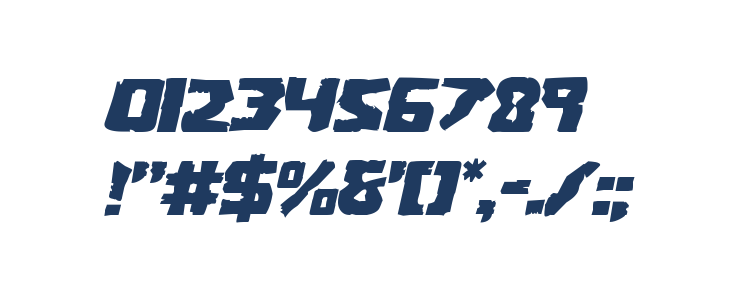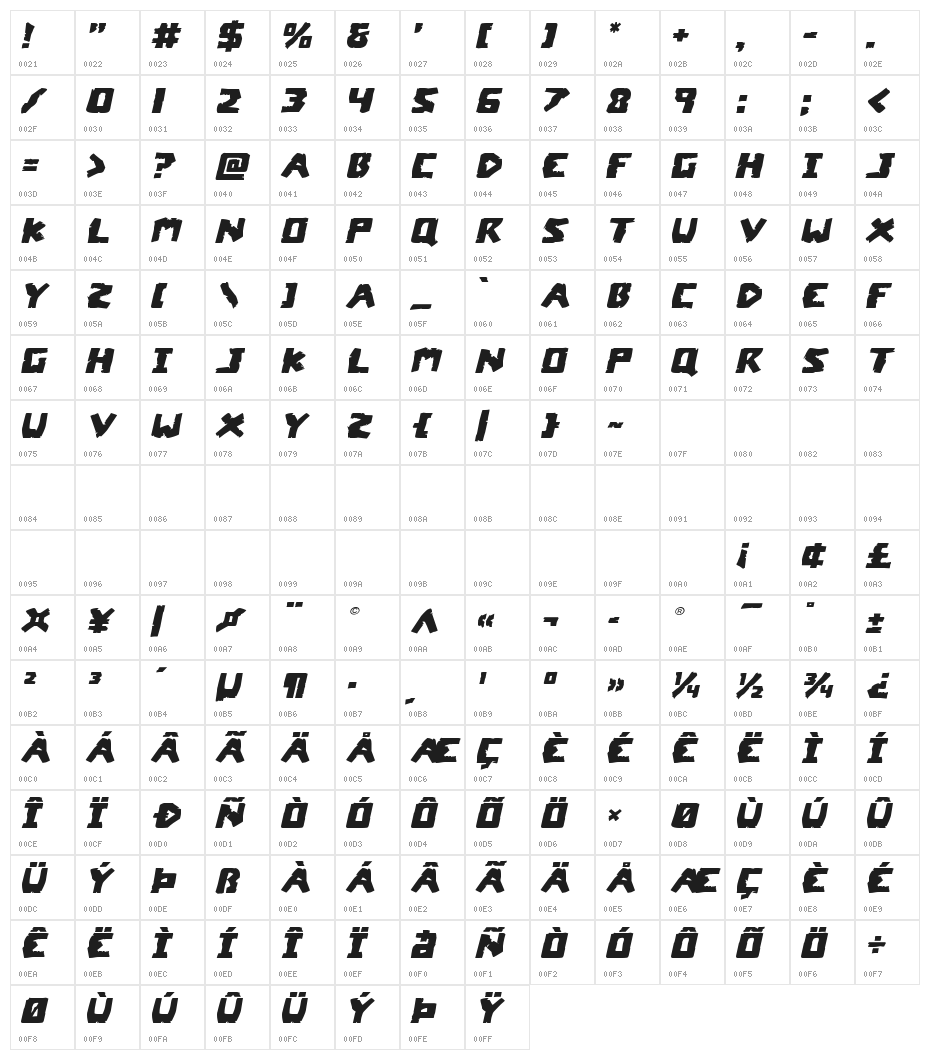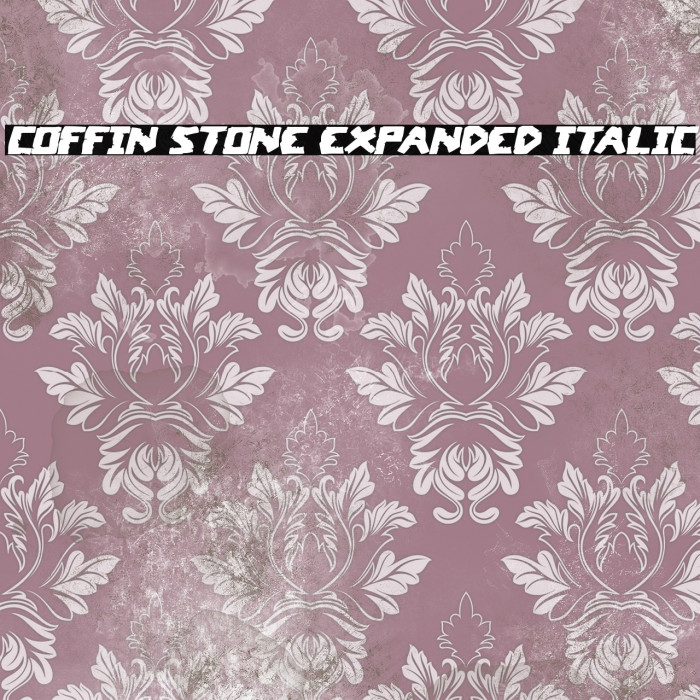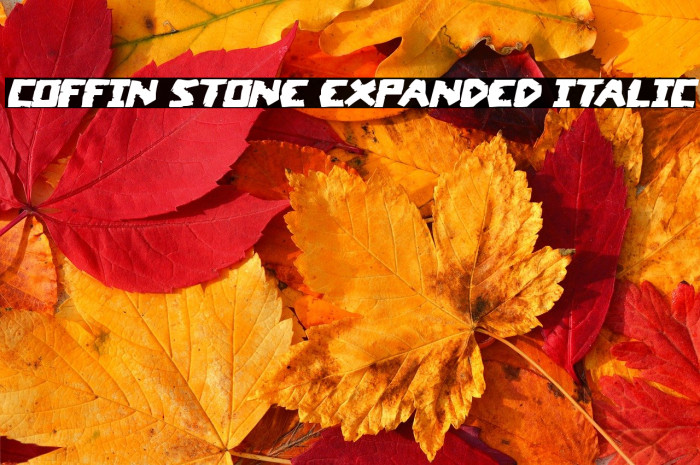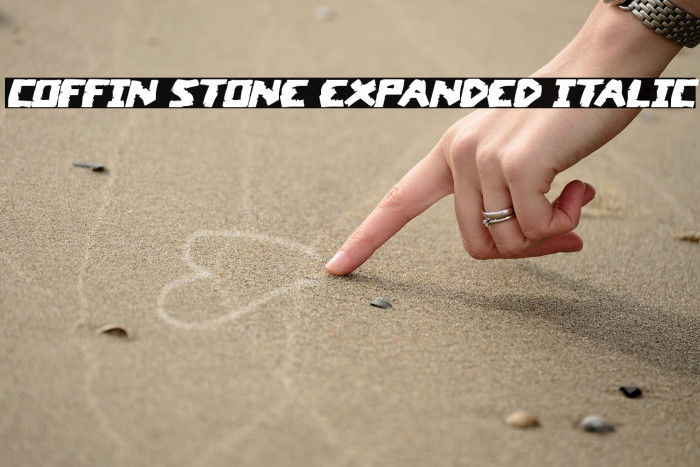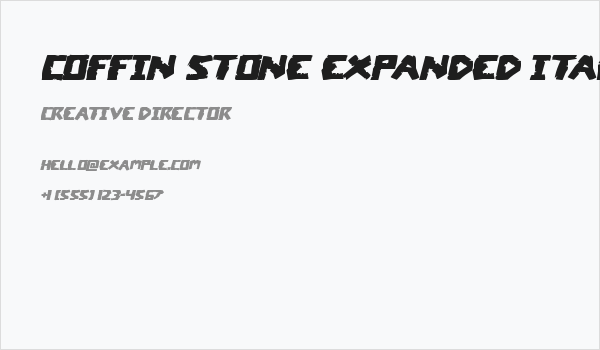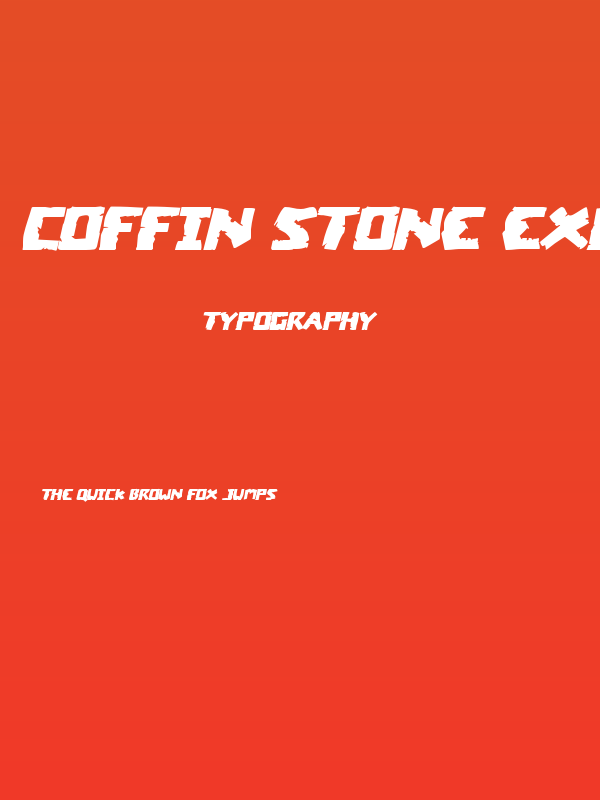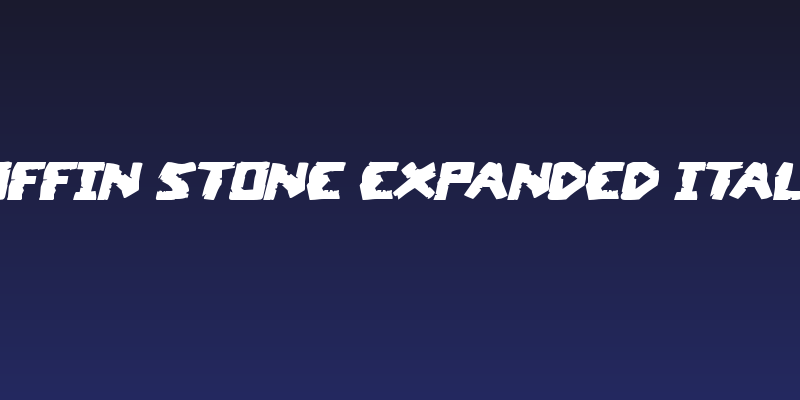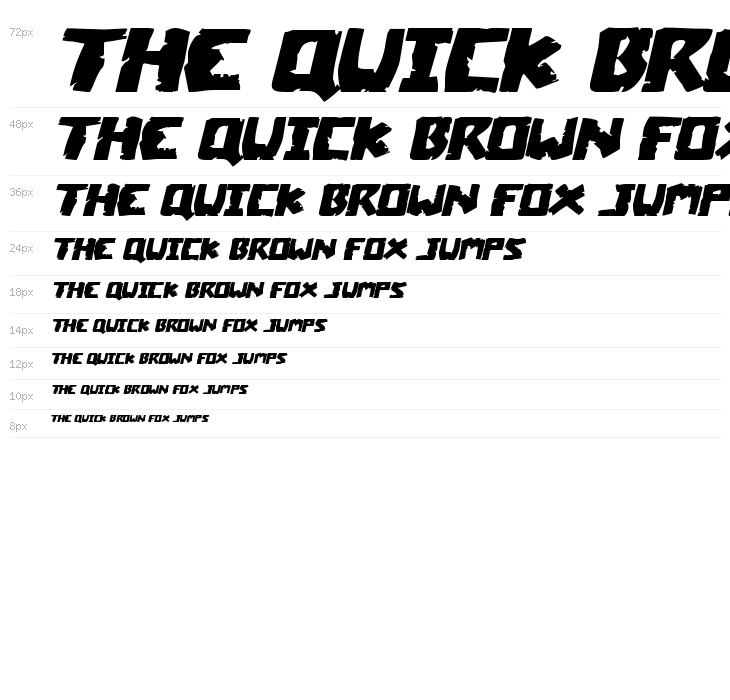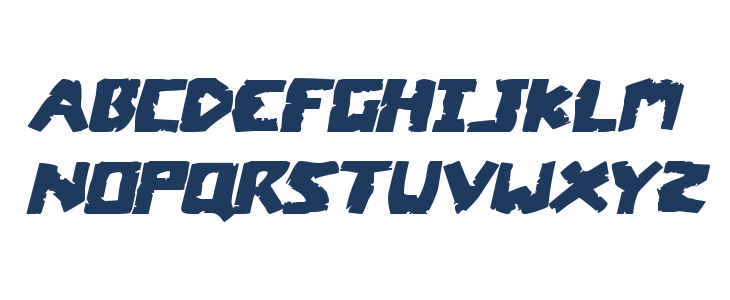
Coffin Stone Expanded Italic Font
Coffin Stone Expanded Italic Description
This font features a bold and aggressive style with sharp, angular edges and a distressed appearance. The characters are heavily stylized, giving them a rough, almost jagged look that suggests a sense of urgency or intensity. The expanded width of the letters provides a strong visual impact, making it ideal for attention-grabbing headlines or titles. The italic slant adds a dynamic and forward-moving feel, enhancing its energetic and modern aesthetic. The font's unique design elements make it stand out, offering a distinctive and edgy look suitable for creative and unconventional projects.